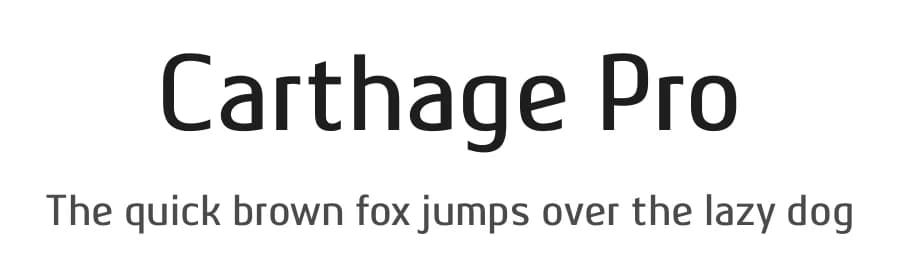
About Carthage Pro Font
****UPDATE****
- I changed the design of the characters and made it more condensed/less wide.
- adjusted the side bearings
- added few more glyphs
- fine-tuned the design of some glyphs
Carthage Pro Font is a versatile sans-serif font that works for both headings and body text. Pair it with a contrasting serif or slab serif font to add visual interest and a clear distinction between titles and body copy.